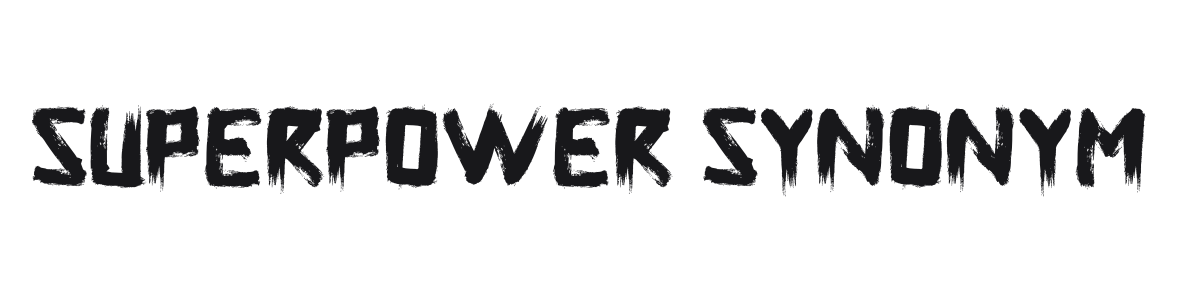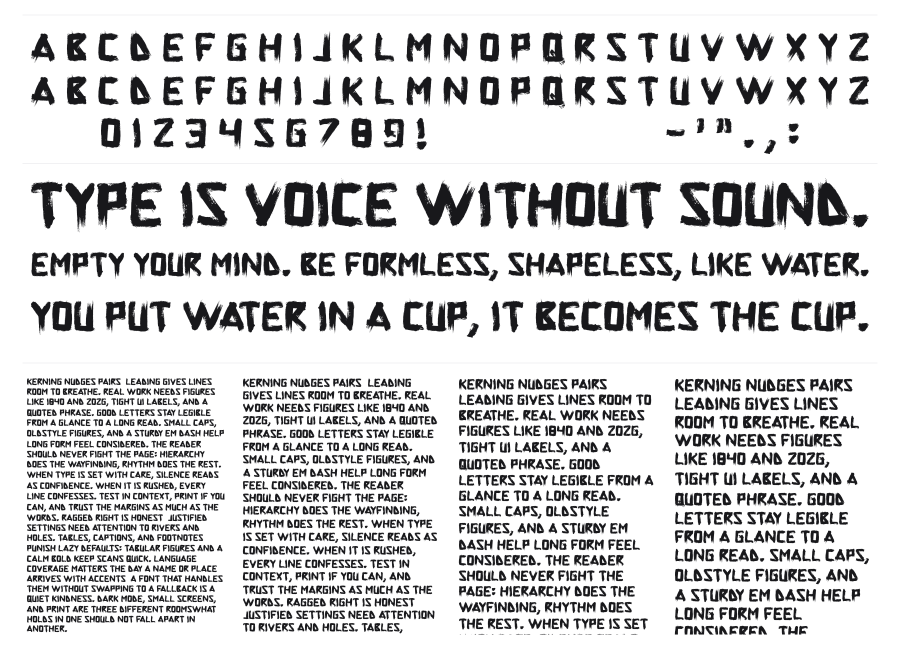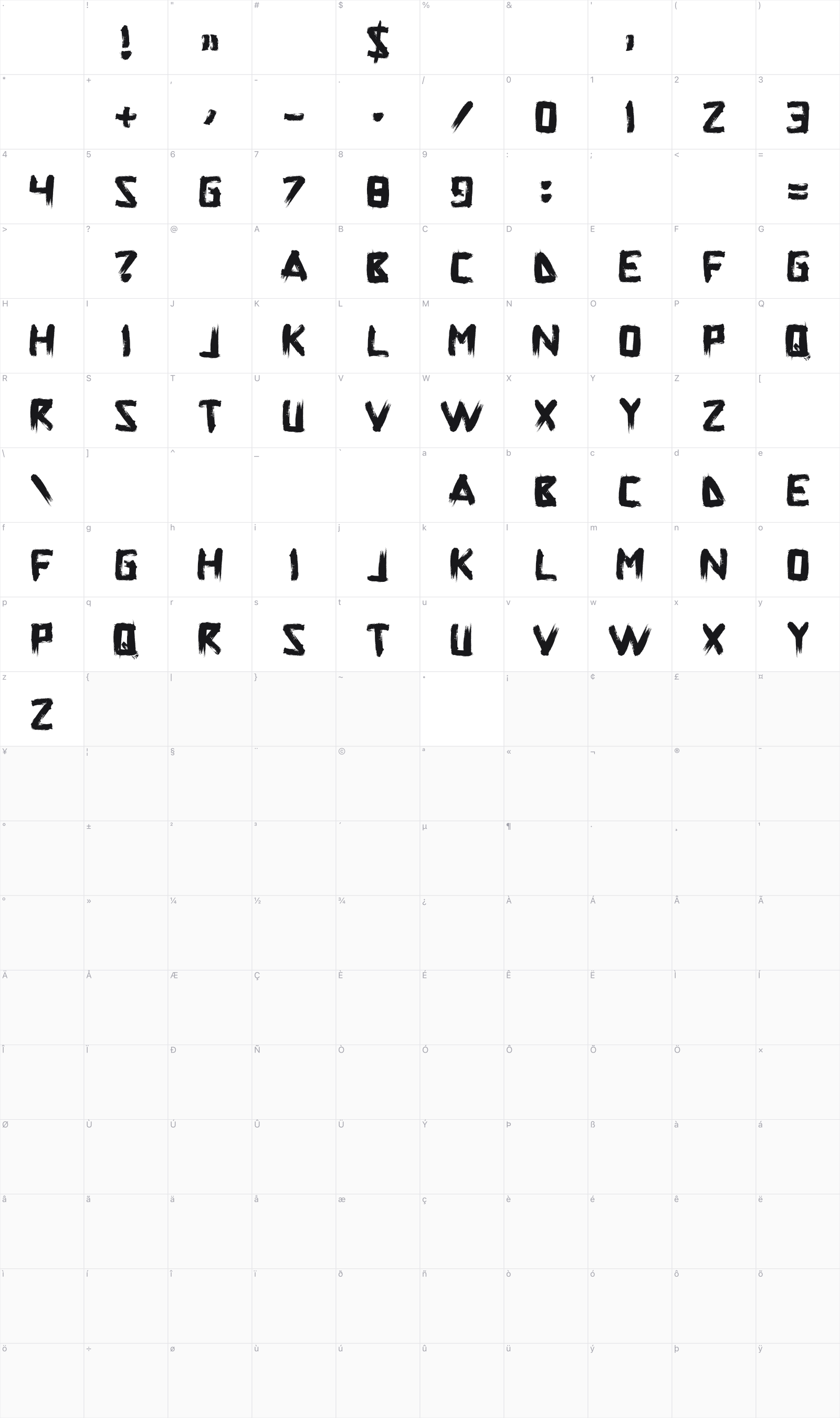
Superpower Synonym
Superpower Synonym is a heavy distressed display font built on the energy of hand-painted street lettering. Every character carries a rough, dry-brush texture with splintered edges that make it feel physically forceful. It works at large headline sizes where the grain and texture can fully read.